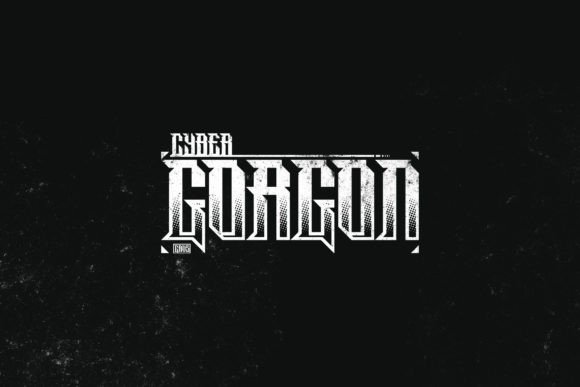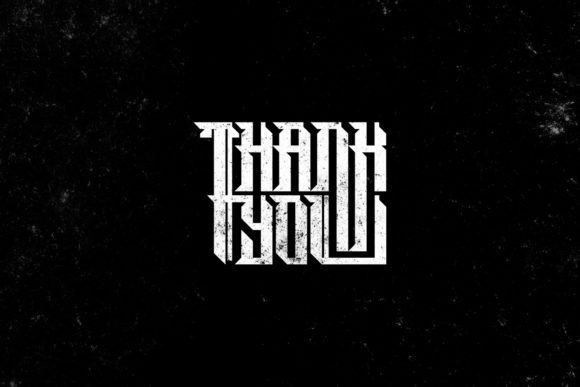
Unlock the Futuristic Vibes with Cyber Gorgon Font
Have you ever stared at a blank canvas, trying to conjure up the perfect font to bring your futuristic vision to life? For designers, finding the right font can be a daunting task, especially when it comes to capturing the essence of a Cyberpunk theme. That’s where our new Cyber Gorgon Font comes in – a sleek, edgy, and mesmerizing typeface designed to transport your audience to a world of high-tech wonder.
With the Cyber Gorgon Font, you can give your team logo, community logo, or any design project a futuristic boost. Whether it’s for a logo, sticker, jersey, invitation card, or brochure, this font is sure to make a lasting impression. As a designer, you’ll appreciate the versatility and uniqueness of the Cyber Gorgon Font, making it an invaluable addition to your design toolkit.
Cyber Gorgon Font Key Features
- Font Type: Display Font
- Character Set: Multilingual support ( Latin, Greek, Cyrillic, etc.)
- Unique Characteristics: Distinctive, futuristic design with a blend of organic and mechanical elements
Cyber Gorgon Font Review
I recently had the chance to work with the Cyber Gorgon Font, and I must say it’s an interesting choice for designers looking to add a futuristic touch to their projects.
- Unique aesthetic: The font’s combination of futuristic and mystical elements makes it a great choice for projects that need a distinctive look.
- High-resolution support: The font is available in various resolutions, making it suitable for use in both print and digital media.
- Extensive character set: Cyber Gorgon Font includes a wide range of characters, including ligatures and ornaments, which can be useful for designers who need to create complex typographic compositions.
- Limited legibility: At smaller font sizes, the font can become difficult to read due to its complex and ornate design.
- No bold or italic variants: While the font is available in regular and condensed weights, there are no bold or italic variants, which can limit its versatility.
The Cyber Gorgon Font is a great choice for designers who want to add a touch of futurism and mysticism to their projects. However, its limited legibility and lack of bold or italic variants may limit its use in certain contexts.
The Cyber Gorgon Font is ideal for:
- Designing futuristic and sci-fi themed graphics.
- Creating unique and eye-catching headlines.
- Adding a touch of cyberpunk to your designs.
To get the most out of the Cyber Gorgon Font, consider the following tips:
- Use the Cyber Gorgon Font for the title, emphasizing its bold and futuristic feel.
- Combine the font with neon-colored backgrounds, geometric shapes, and metallic textures to create a retro-futuristic aesthetic.
- Consider adding distressed or glitch effects to the font to enhance its futuristic feel.
- Use the Cyber Gorgon Font for headings and titles, taking advantage of its bold and futuristic feel.
- Pair the font with dark, muted colors and gritty textures to create a cyberpunk-inspired aesthetic.
- Consider adding neon accents or holographic effects to the font to enhance its futuristic feel.
- Use the Cyber Gorgon Font for the title, taking advantage of its bold and futuristic feel.
- Combine the font with intricate, steampunk-inspired illustrations and vintage-inspired textures to create a unique aesthetic.
- Consider adding distressed or worn effects to the font to enhance its
Project 1: Retro-Futuristic Sci-Fi Poster
Create a captivating poster for a sci-fi movie or book, using the Cyber Gorgon Font to evoke a sense of retro-futurism.
Project 2: Cyberpunk-Themed Social Media Graphics
Design eye-catching social media graphics for a cyberpunk-themed project or brand, using the Cyber Gorgon Font to add an edgy touch.
Project 3: Steampunk-Inspired Artbook Cover
Design an artbook cover that combines the Cyber Gorgon Font with steampunk-inspired elements, creating a unique and captivating visual experience.